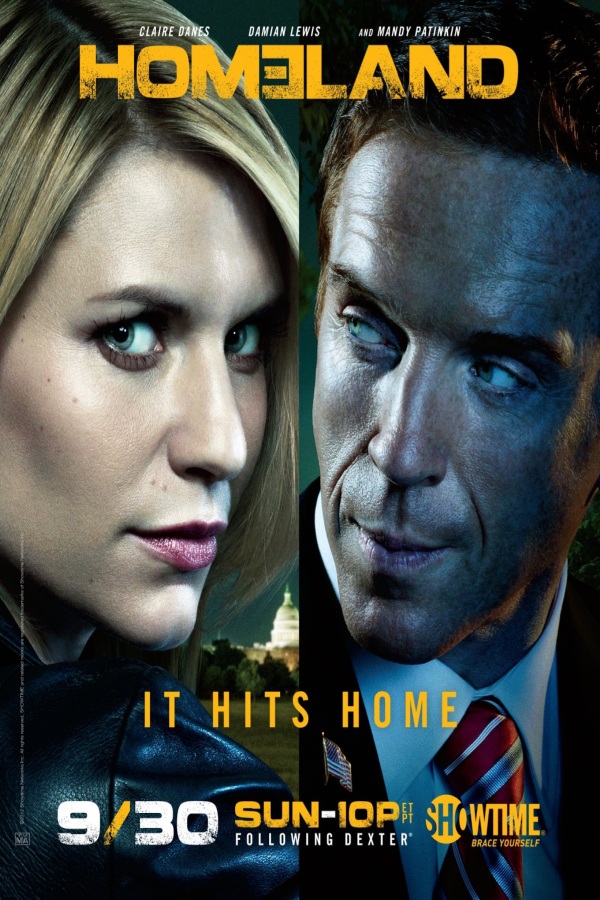
Homeland Font
Fonts in UseHomeland is a gripping television series that follows the intense and complex journey of a CIA officer named Carrie Mathison as she navigates through espionage, terrorism, and personal struggles.
The TV show's logo font bears a striking resemblance to Coalition, a square sans serif font created by TracerTong. This all-caps typeface can be downloaded for free from the Fonts Used Section.